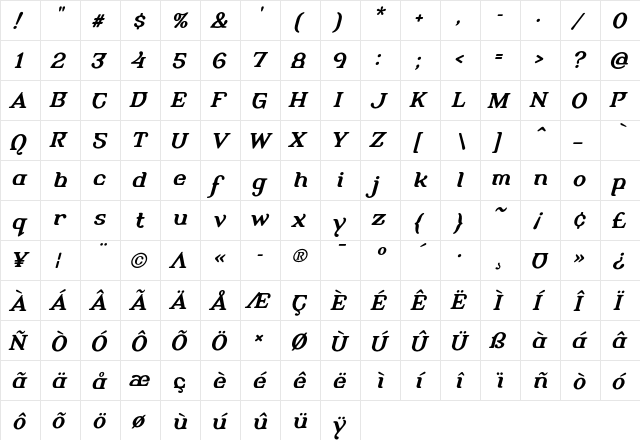
AlembicBeta-BoldItalicOne Regular Font Preview
Design Context for AlembicBeta-BoldItalicOne Typeface
AlembicBeta-BoldItalicOne offers clean, dependable letterforms without strong stylistic allegiance, making it a practical choice for designers who need flexibility. Its italic angle brings a sense of urgency and motion to the letterforms. The heavy weight commands attention and anchors typographic hierarchies.
Pro Tip: Try AlembicBeta-BoldItalicOne for annotation and caption copy alongside an upright companion — the contrast in angle creates a dynamic but ordered typographic system.